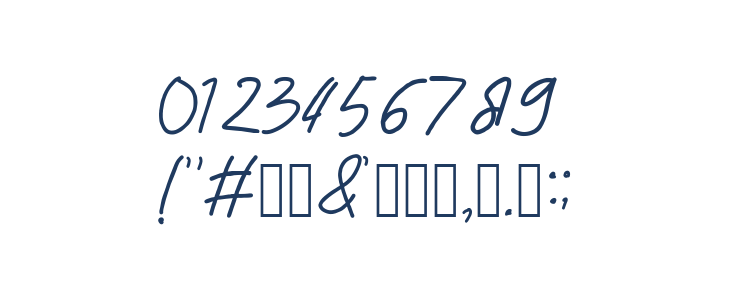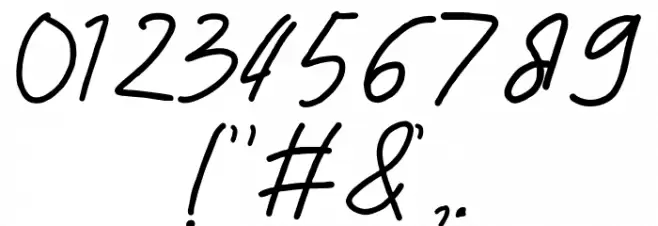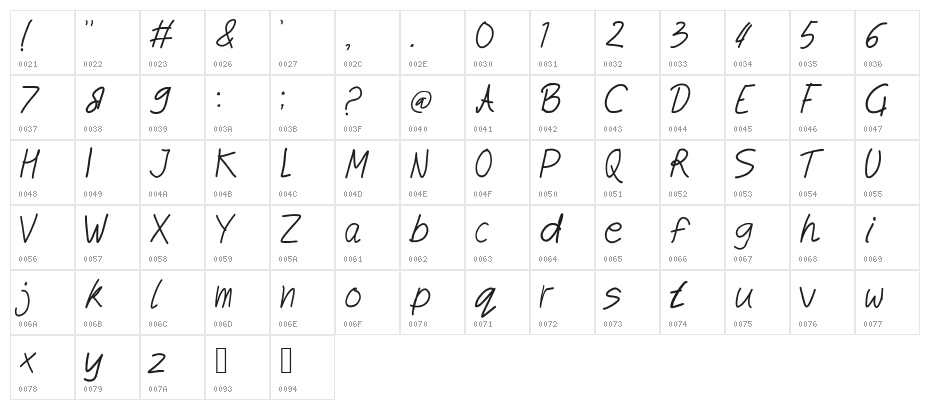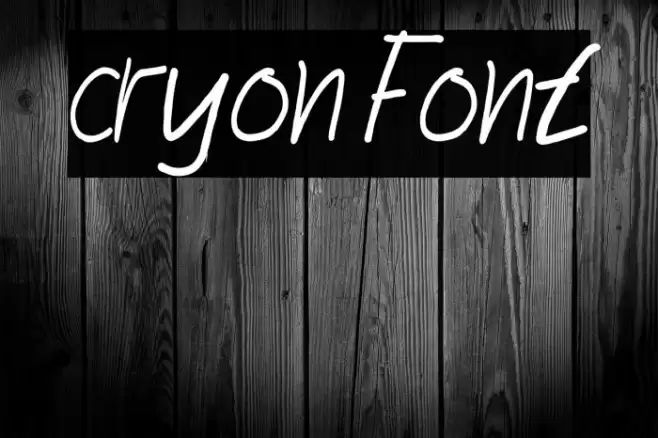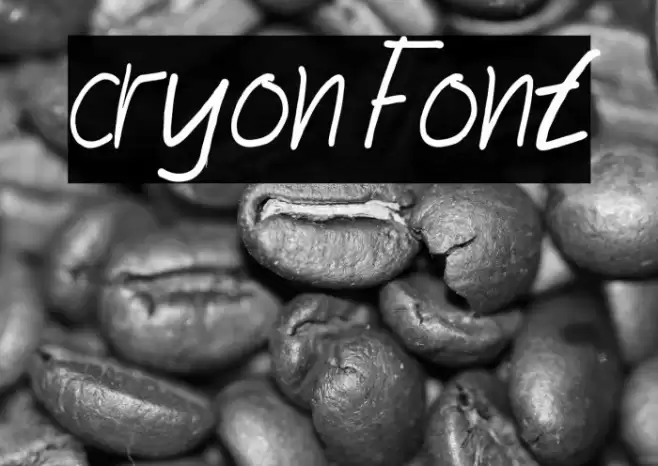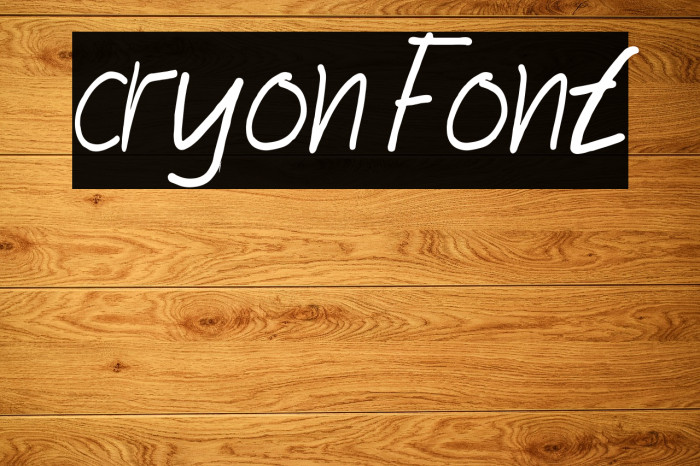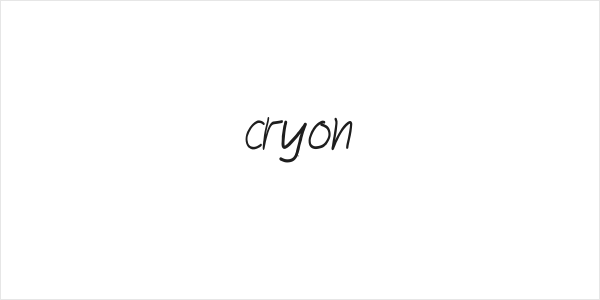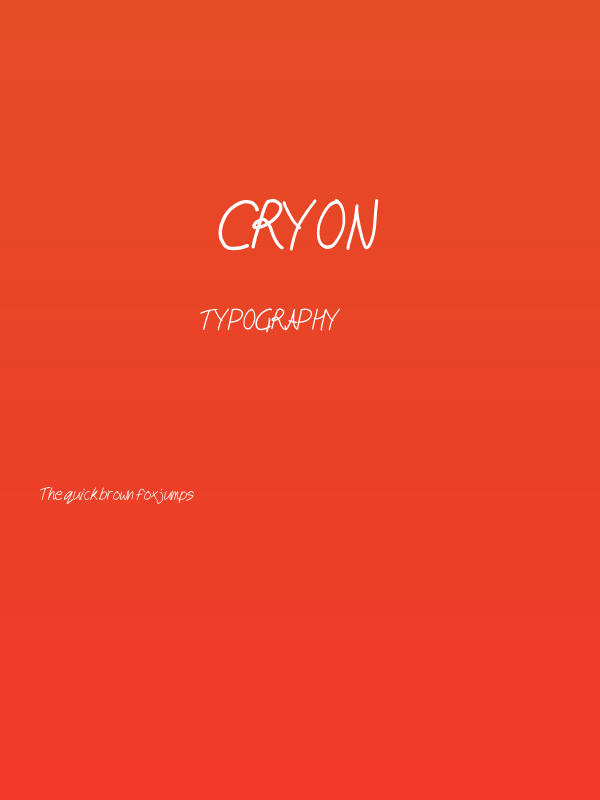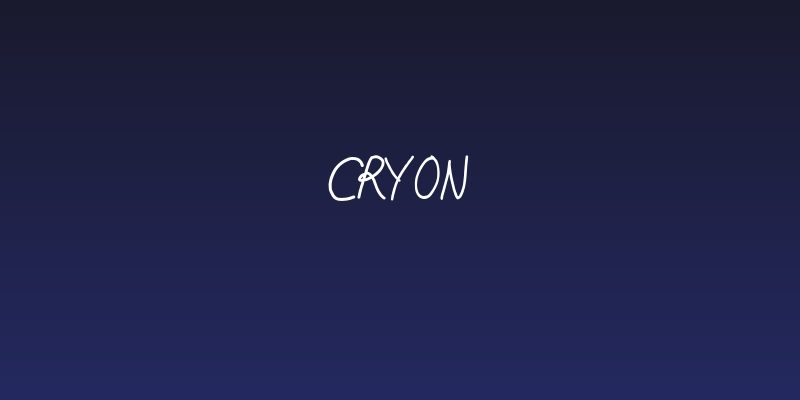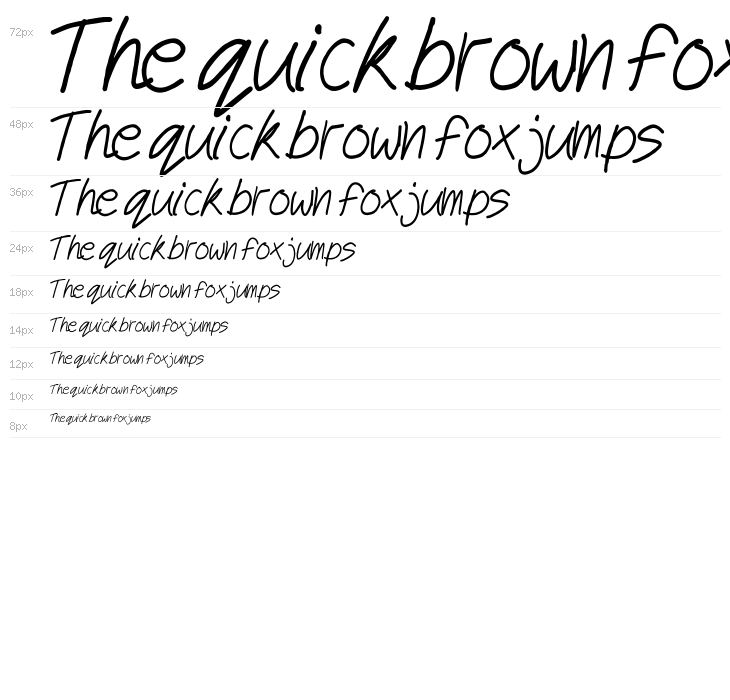
cryon Font
cryon Description
This font features a casual, handwritten style with a playful and informal appearance. The letters are slightly slanted, giving it a dynamic and lively feel. The strokes are smooth and fluid, resembling natural handwriting with a personal touch. The uppercase and lowercase letters maintain a consistent flow, while the numbers and special characters integrate seamlessly into the overall design. This font exudes a sense of approachability and friendliness, making it suitable for projects that require a personal or informal tone.